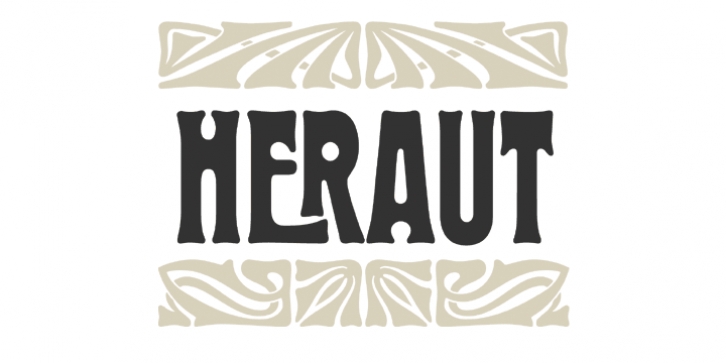
Hermann Hoffmann,
astype
The Heraut is a typical art nouveau advertising display typeface. The design is based on the work of Hermann Hoffmann from 1901.
OpenType features:
over 580 Glyphs
Central European Glyphs
Small Capitals
Contextual Alternates
The ornaments typeface uses several common OpenType features to switch easily between the elements. Have a look into the Heraut specimen PDF.